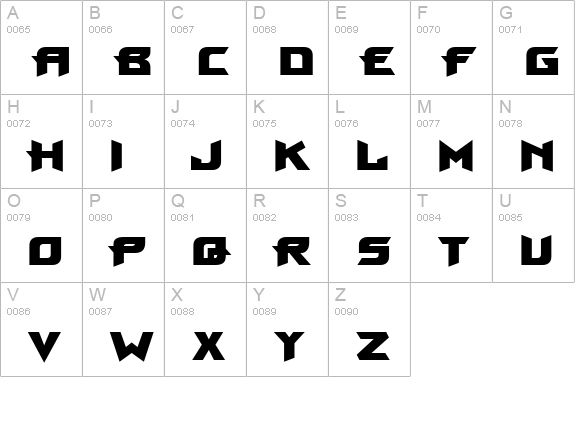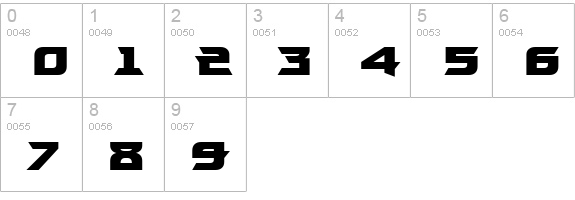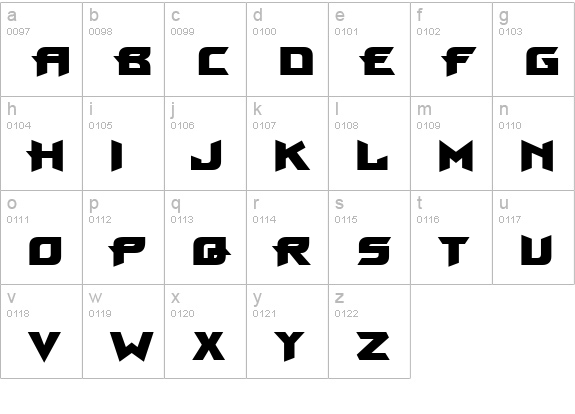
ProunX Bold is a strong, high-contrast variant in the ProunX typeface family \xE2\x80\x94 well suited to headlines, attention-grabbing titles, and strong calls-to-action.
ProunX Bold is a captivating and versatile font that exudes elegance and sophistication. Its bold and striking design makes it perfect for creating eye-catching headlines, posters, and branding materials. The clean lines and modern look of ProunX Bold give any project a polished and professional appearance. What sets ProunX Bold apart is that it is not only a high-quality font, but it is also free to use. Yes, you read that right - this exceptional font is freely available to download at FontsMarket.com. Whether you are a designer, student, or hobbyist, ProunX Bold provides an opportunity to enhance your projects without any cost. Don't miss out on this fantastic font - download ProunX Bold today and elevate your designs to the next level.